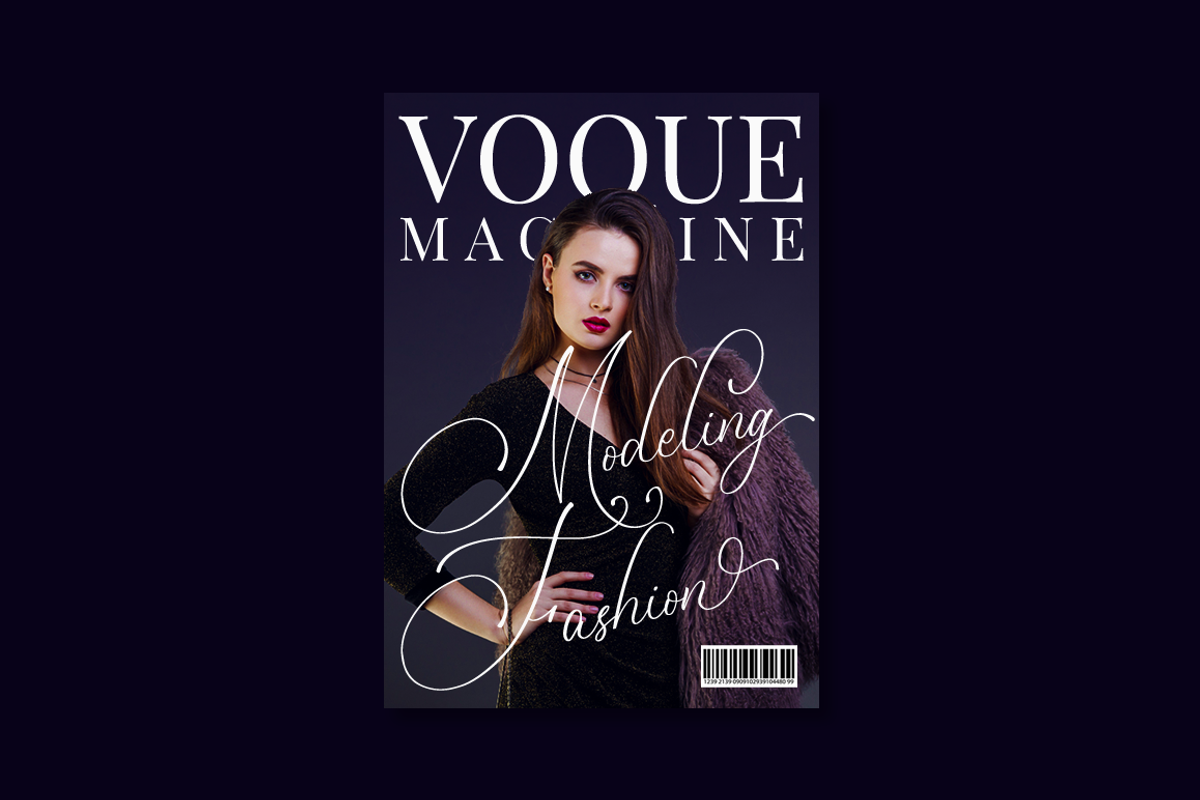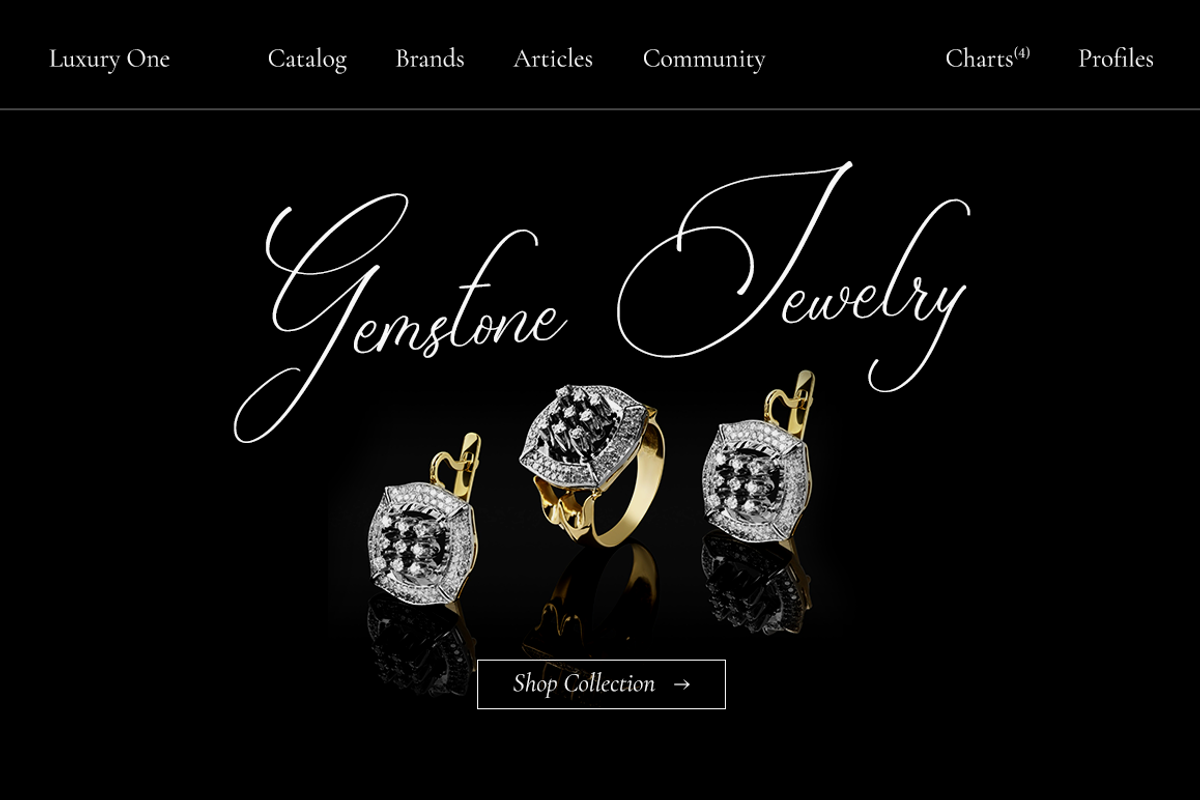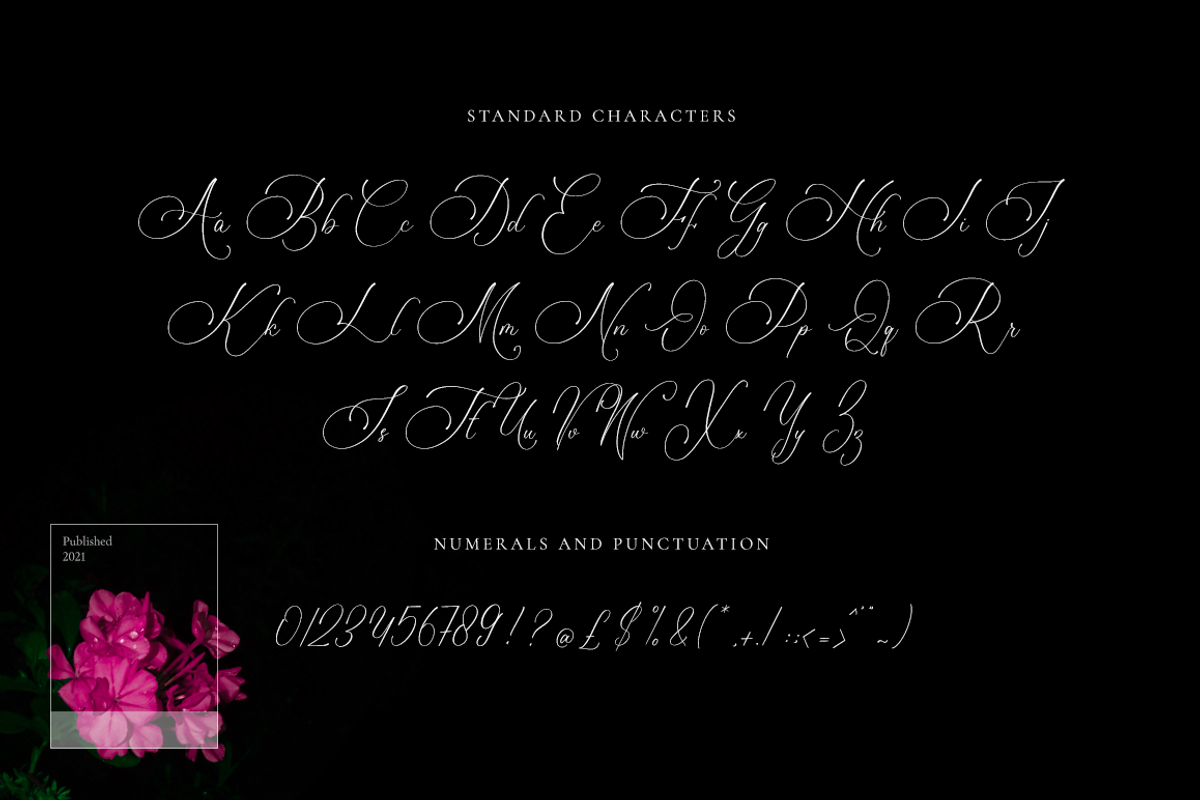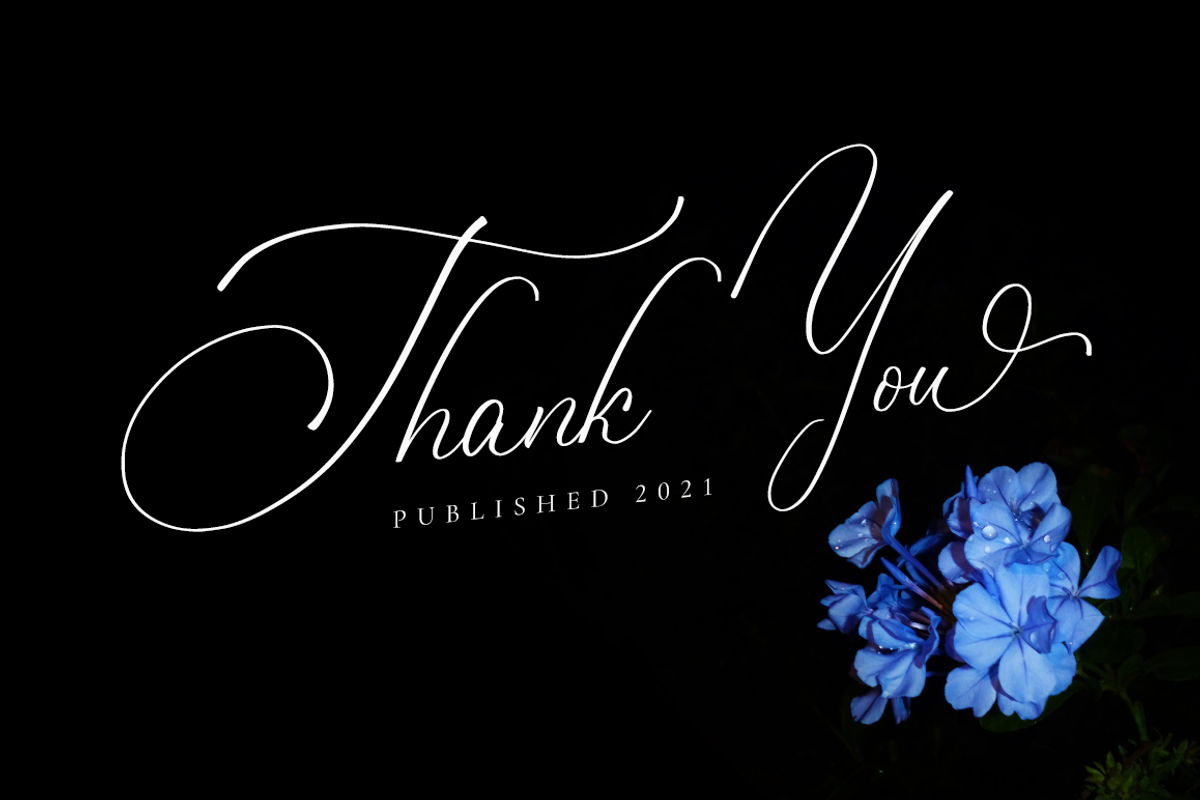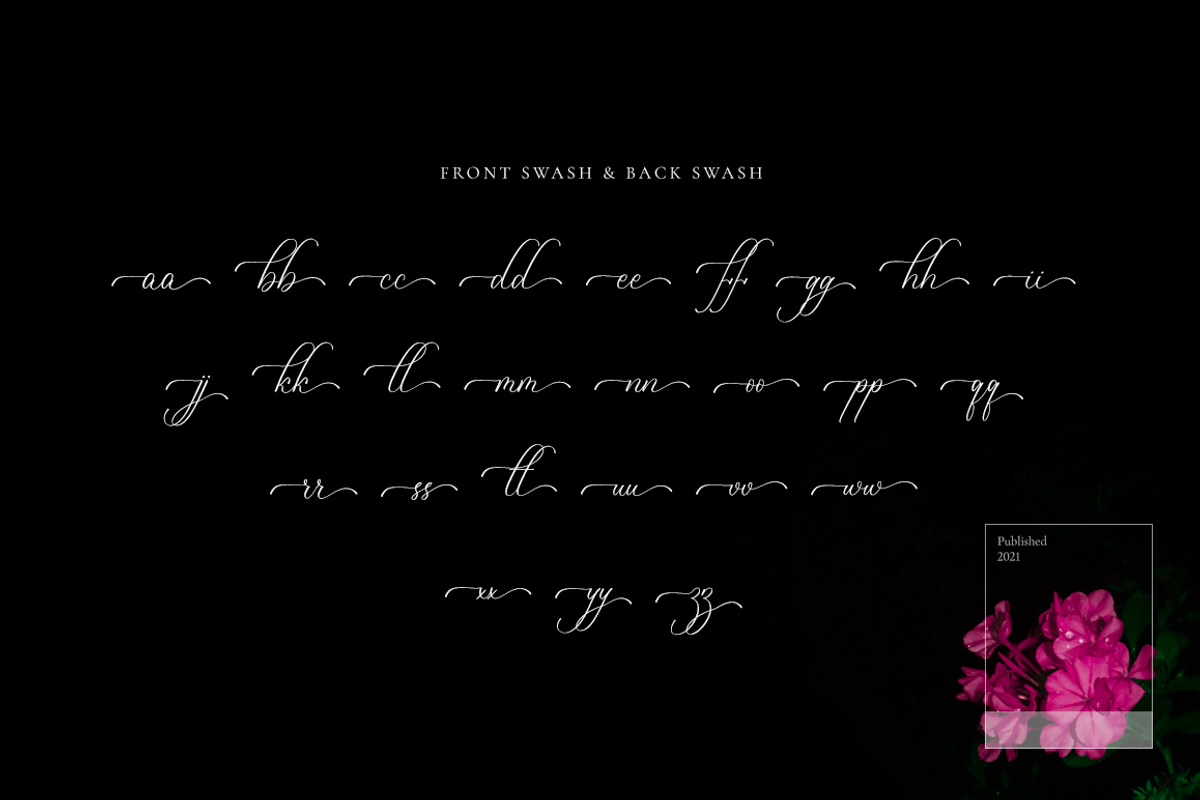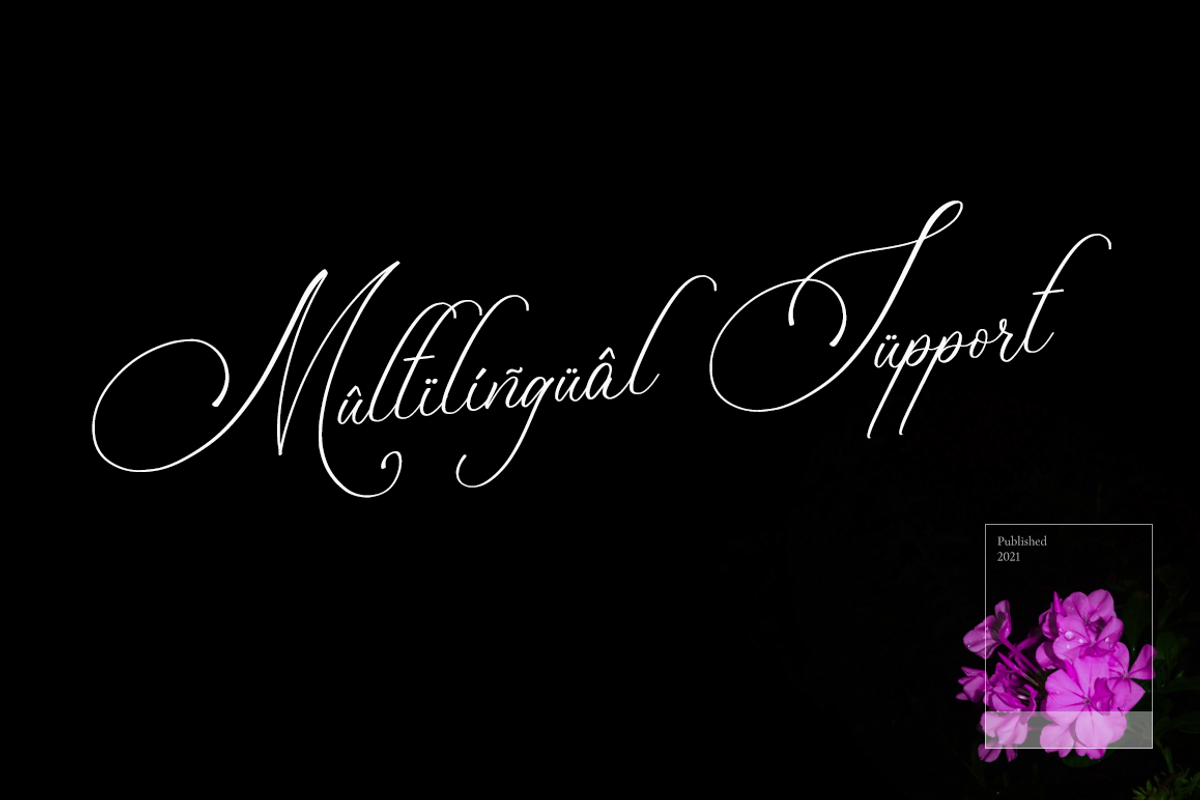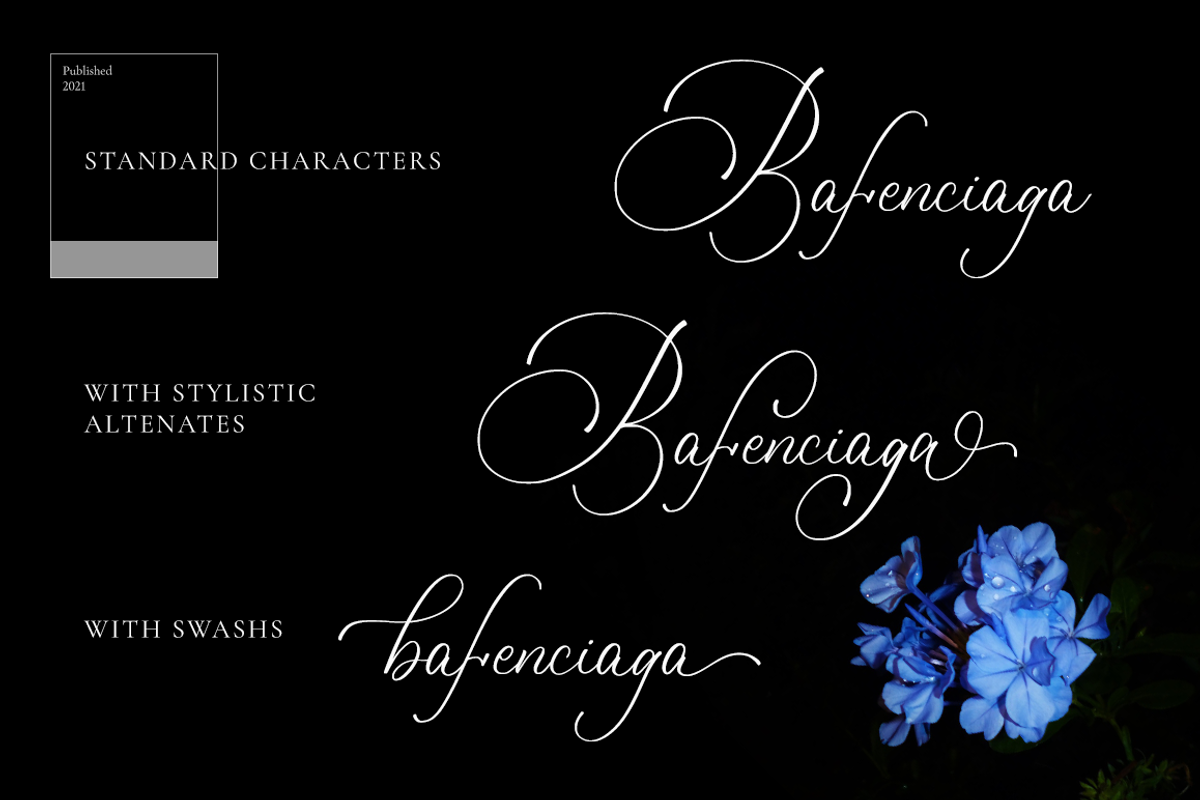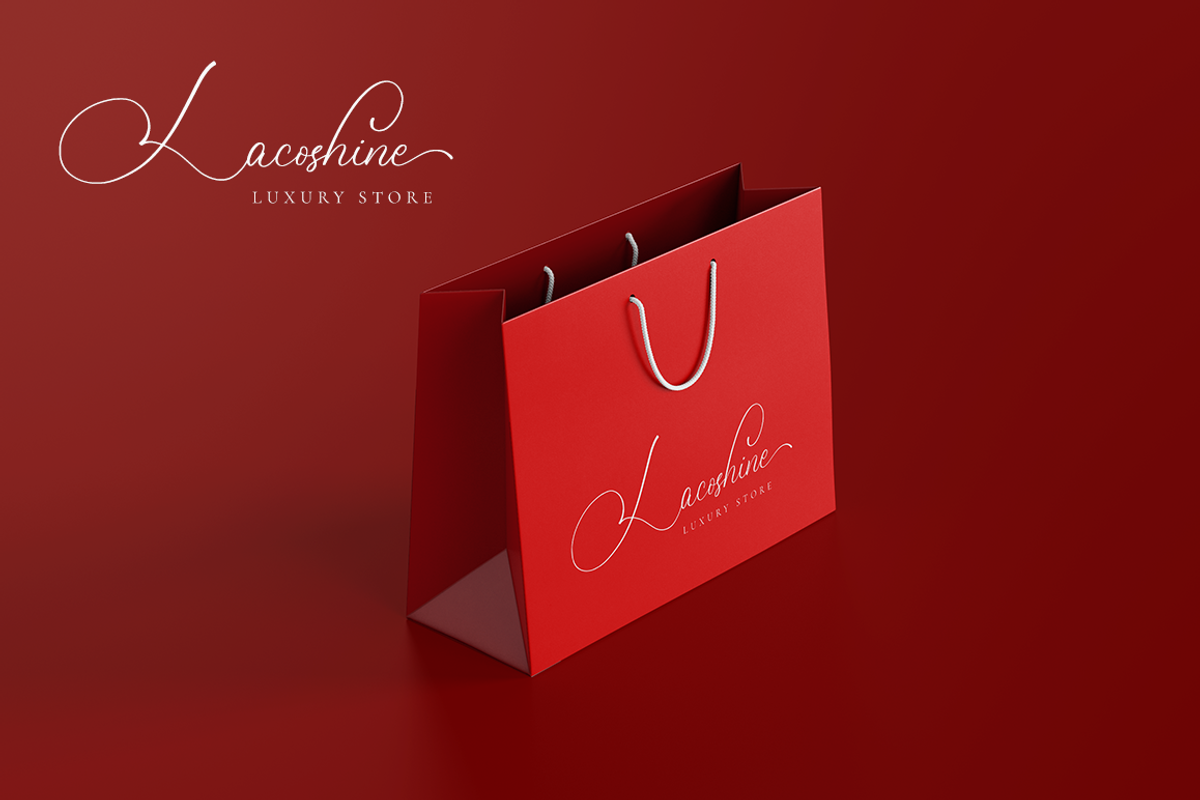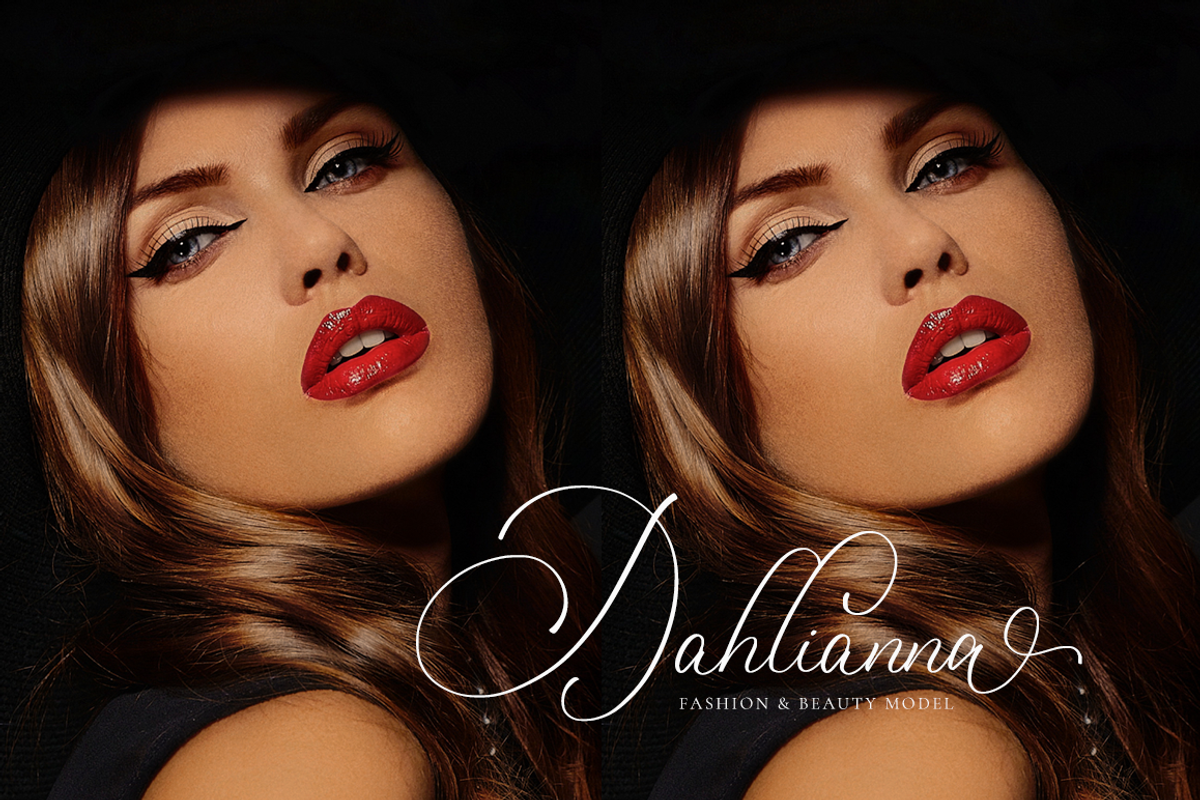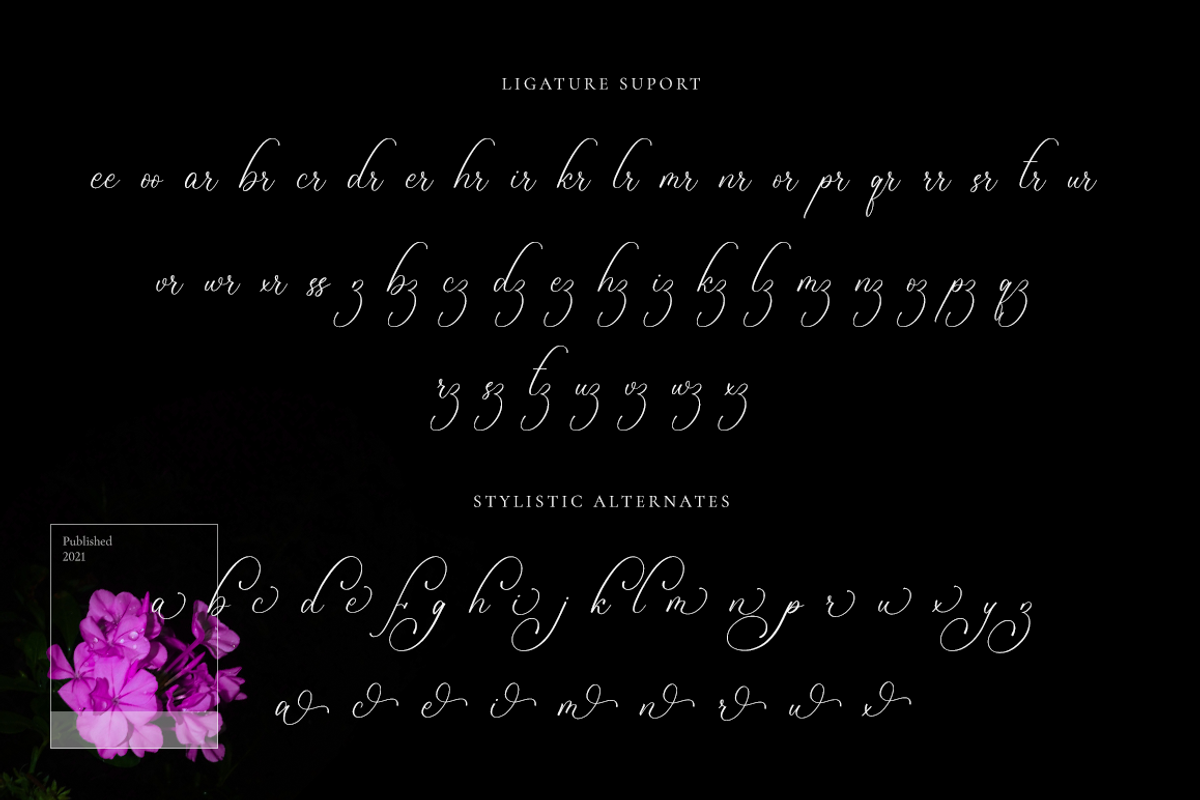
Bulvaryante - Romantic Calligraphy
Bulvaryante is a unique handwritten font. It includes elegant swashes which can be used to give a luxurious look to your designs. It can be used for various purposes such as logos, wedding invitations, headings, t-shirts, letterhead, signage, labels, news, posters, badges and so much more.